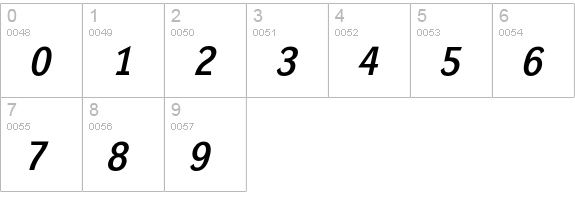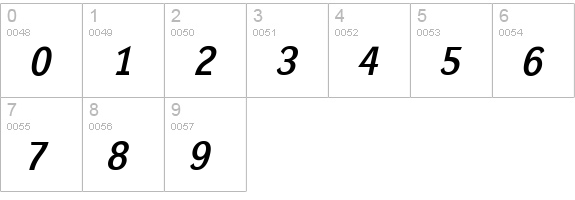
Dynamo Italic L D is a distinctive, italic variant in the Dynamo typeface family \xE2\x80\x94 well suited to design and typography projects.
Dynamo Italic L D is a sleek and modern font with a touch of sophistication. Its italic style adds a dynamic flair to any design project, making it perfect for adding a contemporary touch to your work. The bold and defined letterforms of Dynamo Italic L D make it stand out, while still maintaining readability and elegance. This font is versatile and can be used for a variety of design purposes, from branding and advertising to editorial and web design. Its clean lines and distinctive style make it a great choice for projects that require a bold and impactful look. Best of all, Dynamo Italic L D is available for free download at FontsMarket.com. You can easily access this stylish font and incorporate it into your projects without any cost. Don't miss out on the opportunity to enhance your designs with the modern and eye-catching Dynamo Italic L D font.